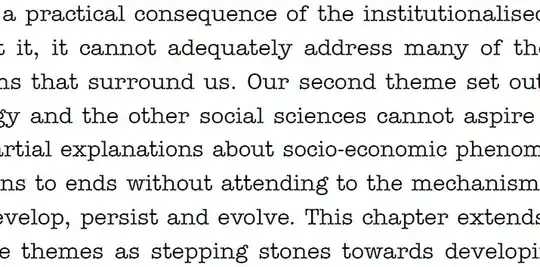
My document uses the txfonts package, which provides Times Roman, Helvetica and what appears to be a facsimile of Courier.
However, I dislike the monospace font and find it to be particularly ugly. I am therefore interested in alternatives that ship as part of texlive. Bera mono is nice however I am more in the market for a serif monospace font as opposed to sans serif.
Any ideas/suggestions?
I like Inconsolata like Khaled does. It's monospaced and it supports several encodings including T1, OT1 and LY1.
Just load inconsolata.sty, you could additionally specify a scaling option [scaled=factor].
Here's an example how the font looks like, taken from my blog:
• I really like inconsolata and I use it in all my editors. The problem however, is that the version from google fonts has the italic/slanted but the latex version lacks slanted. Am I wrong? – Pouya Jun 05 '14 at 10:18
inconsolata can break some Unicode characters, at least in math mode, for instance if \DeclareUnicodeCharacter{00D7}{\ensuremath{\times}} has been used earlier. A workaround is to put \usepackage{inconsolata} before the other packages related to font encoding. – vinc17 Feb 22 '17 at 16:47
From the Latex Font Catalogue: typewriter fonts, which are not all typewriter fonts, but I think they are all monospaced.
I think most of the easily available monospaced serif (as you asked) typefaces have already been mentioned. One worthy typeface that hasn't yet is Gyre Cursor. Although it doesn't ship with TeX Live, it's very easy to obtain and install. I find lots of use for it in small blocks of running text, especially \url's. It's a nicely reworked courier drop-in (however, on that front, I'm guessing you might find it "particularly ugly" :)).
I know you asked for typefaces from the TeX Live distro, but as I have a minor love affair going right now with Adobe's ITC American Typewriter, I can't resist mentioning this very attractive font set (see sample below), if only to provide a look at a tt typeface that is not, to my eyes, "particularly ugly." Only for running text, however; I certainly wouldn't use it for listings.
While certainly nice, this is not a monospace font - just check the width of the "m" and the "i" in "economic". – lockstep Aug 24 '10 at 13:53
Yes, yes, it's a tt typeface, not a true monospace font. I appended it to my response because a) I find lots of use for it, and b) it might help out/inspire others who might one day be reading through this posting. Perhaps not "technically" on-topic, but nevertheless maybe "aesthetically" useful given the nature of all of us drawn to producing beautiful TeX/LaTeX created print. I sure hope that's OK by all :)) – Geoffrey Jones Aug 24 '10 at 14:27
TeX Gyre Is included in recent tex live distributions. – Will Robertson Aug 24 '10 at 23:49
I personally prefer either Inconsolata or CM typewriter (usually using LM's).
Have a look at the luximono font. (Note that it is part of MiKTeX, but not of TeX Live.)
\usepackage[scaled=0.8]{FiraMono}
( Put the above line in the preamble of your document, i.e. immediately after \documentclass. )
I use the typewriter font for program code. As such, it is important to clearly distinguish between 1 and l, the former being the digit one and the latter being the lower case letter L.
I strongly advise against beramono because when I copy for example echo $OS_PASSWORD_INPUT from the compiled PDF into a terminal it shows up as echo $OS _ PASSWORD _ INPUT. Not helpful.
Other good alternatives include \usepackage[scaled=0.8]{GoMono}, \usepackage[scaled=0.8]{DejaVuSansMono}, but I prefer FiraMono.
My favourite one is ubuntu mono. You can easily use with XeLaTeX or LuaLaTeX and fontspec!